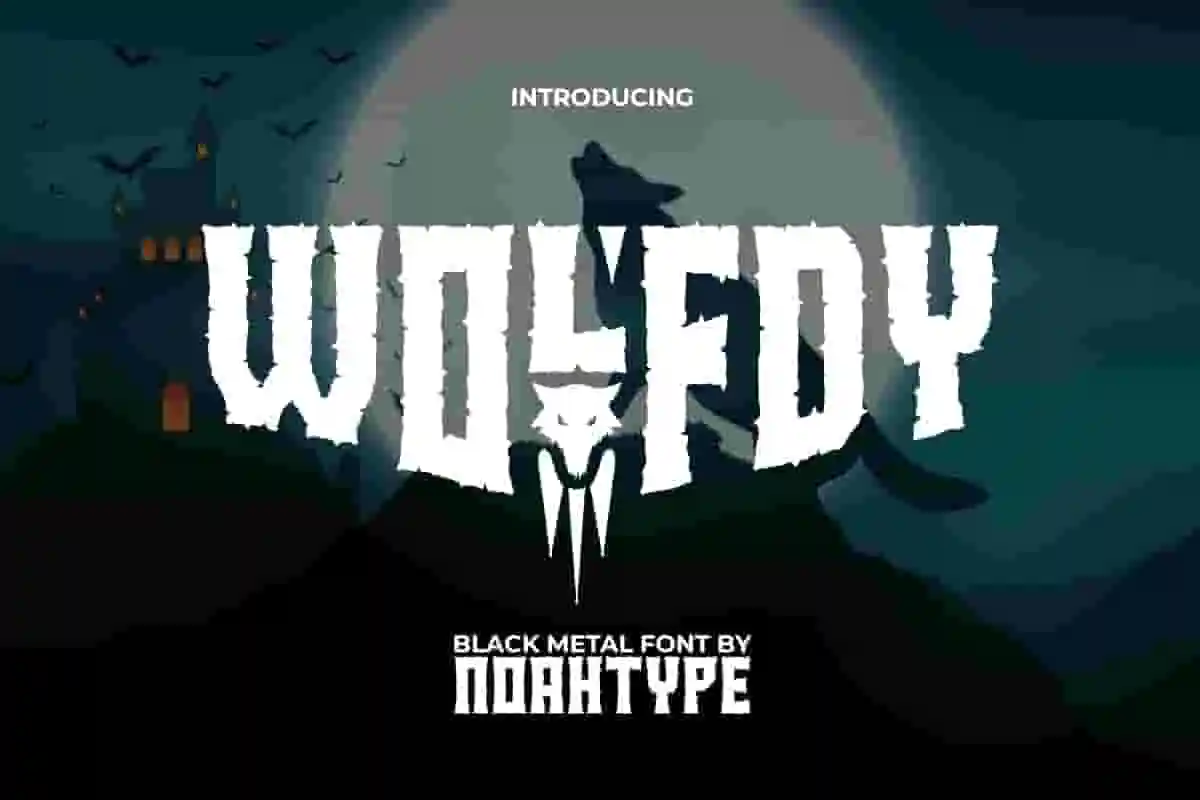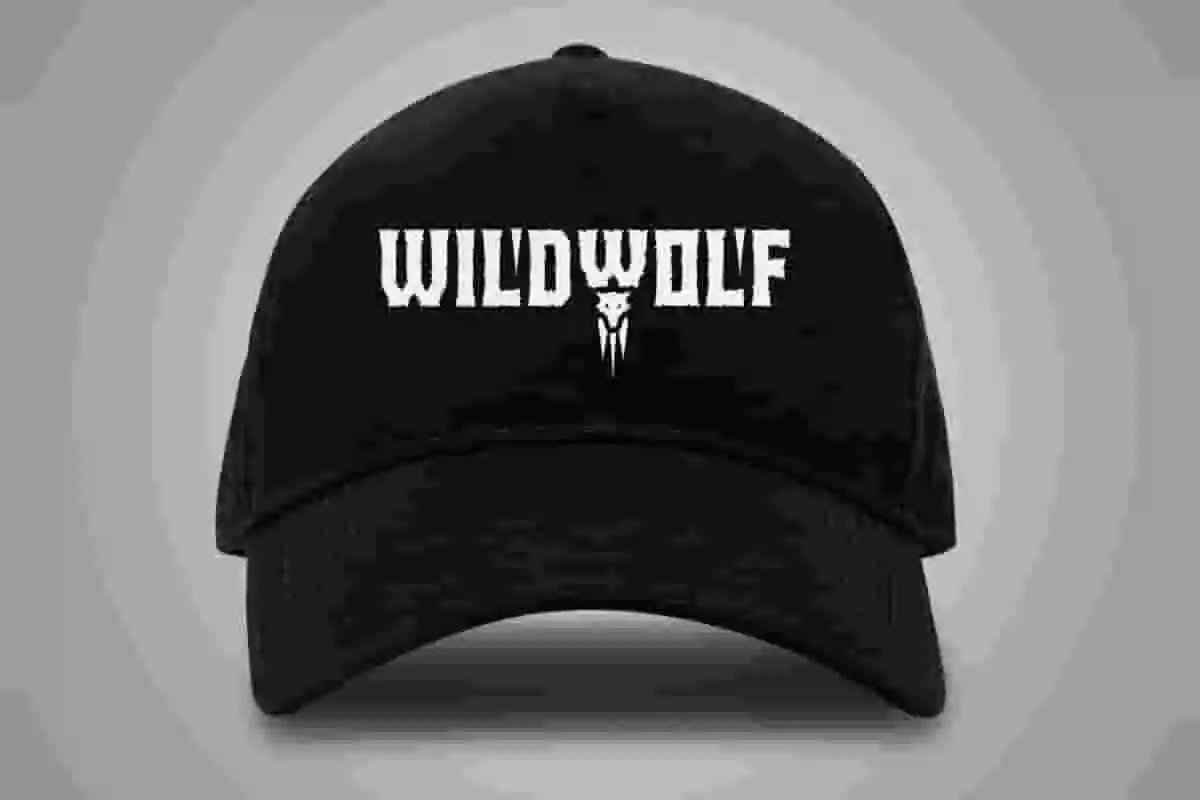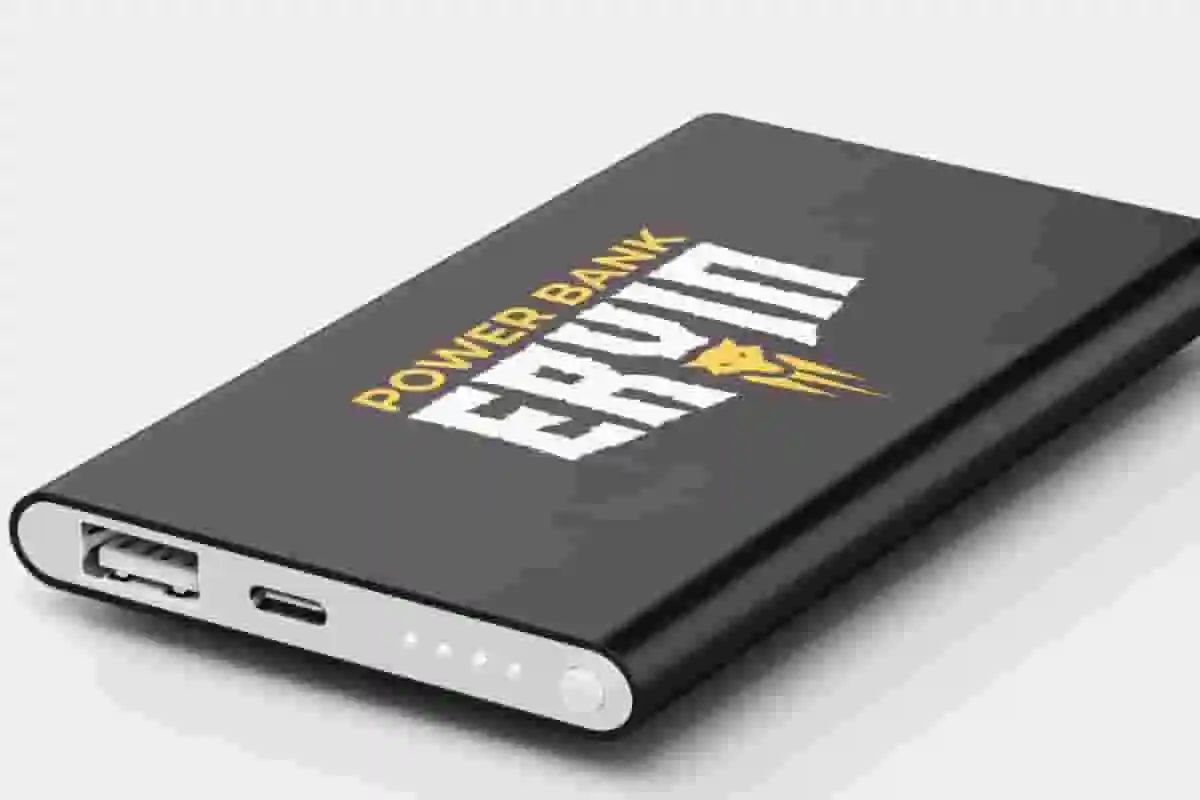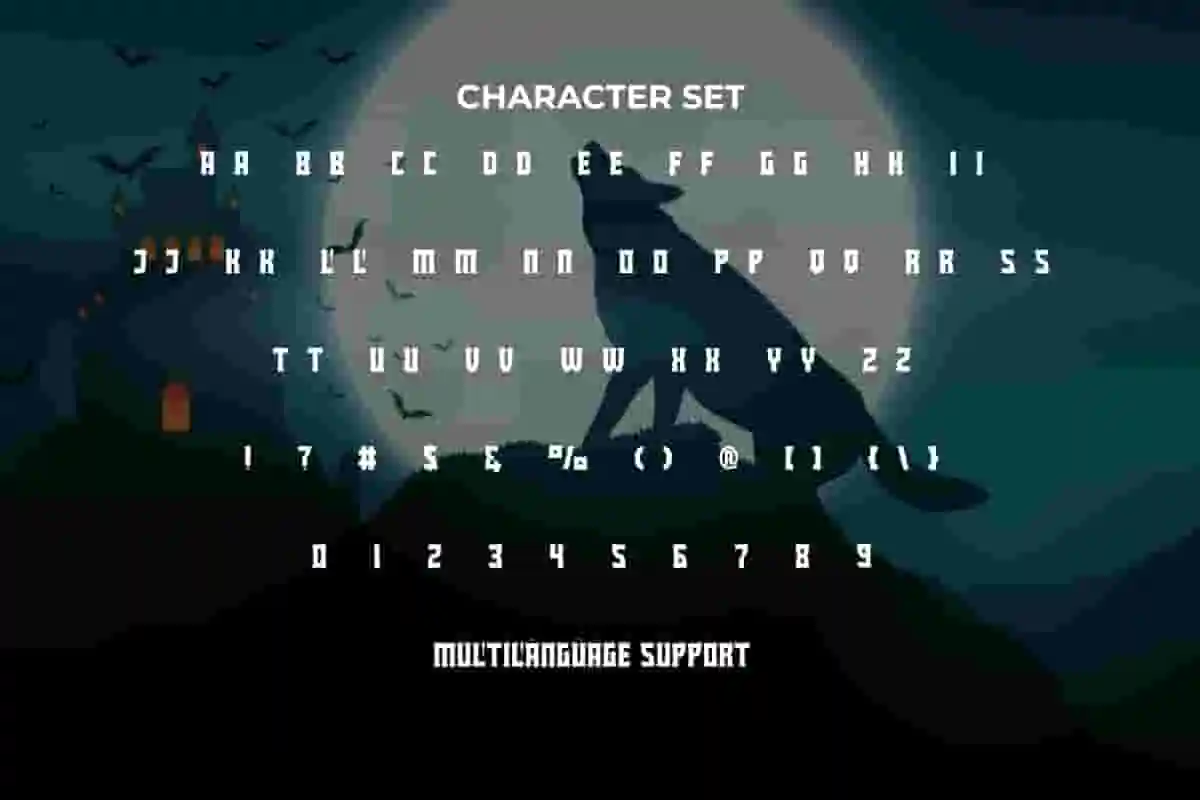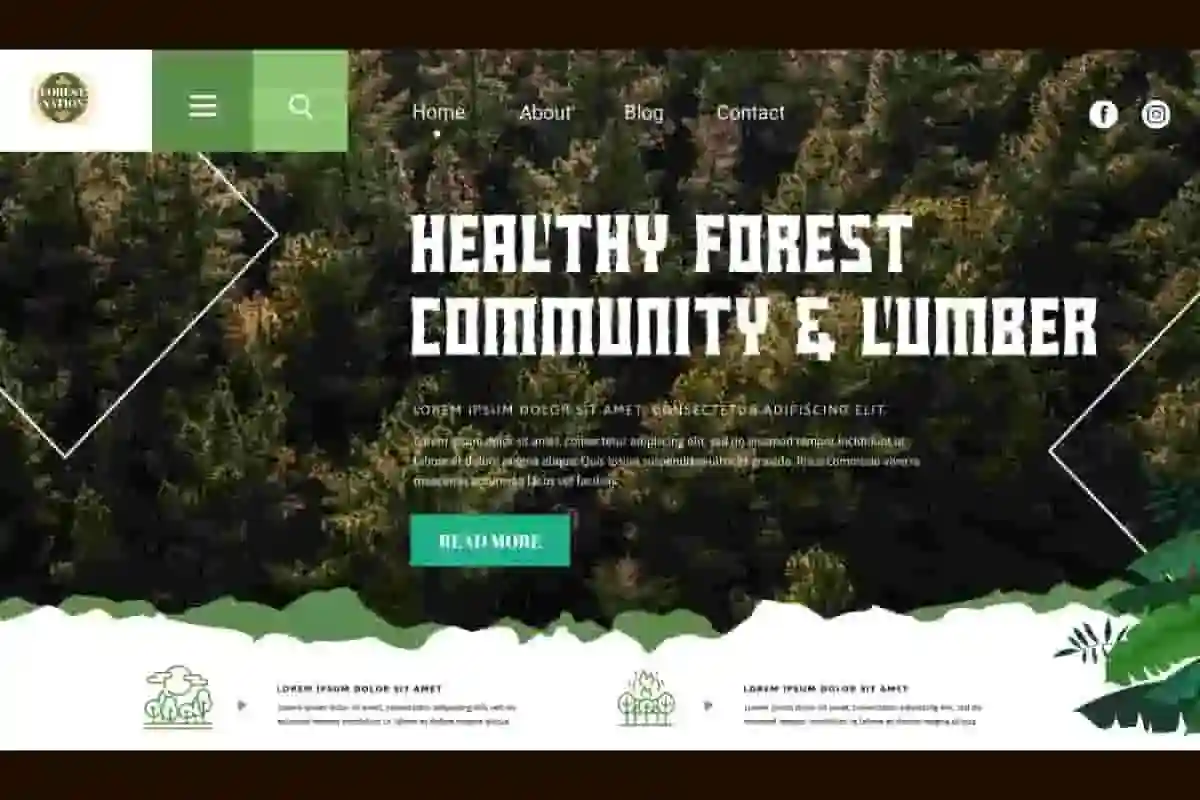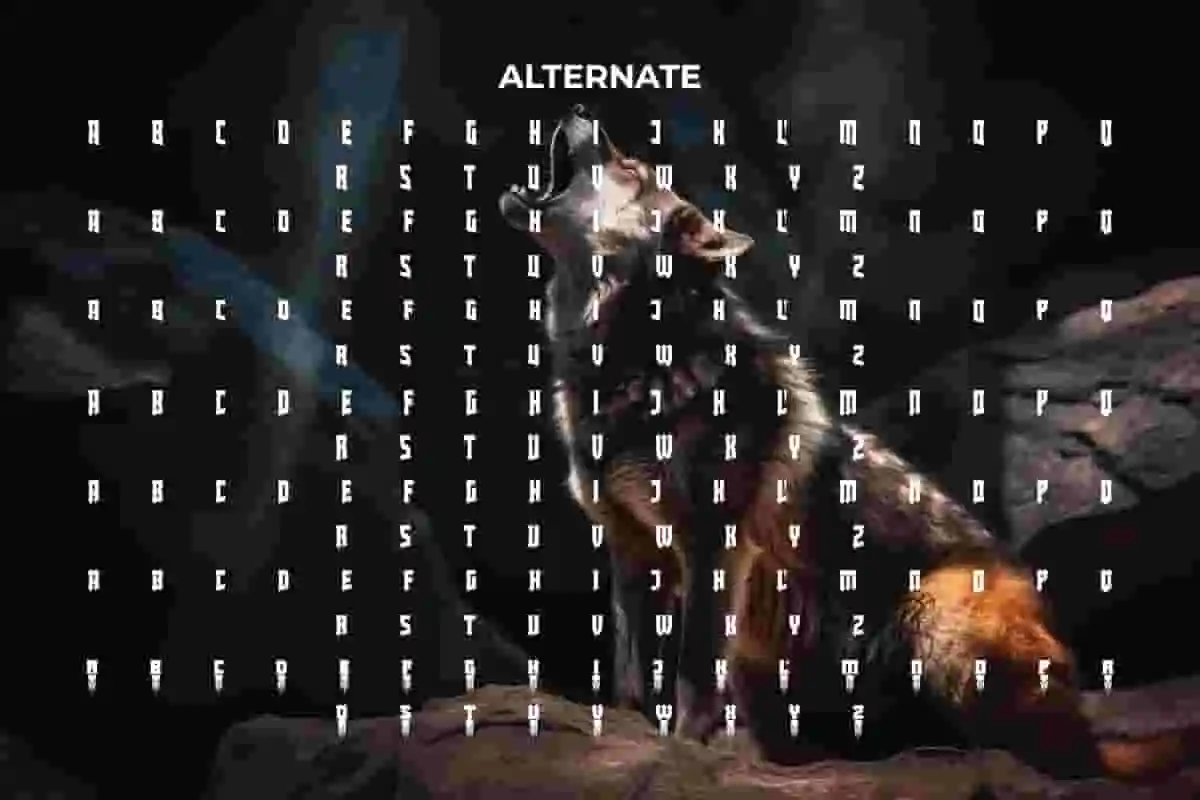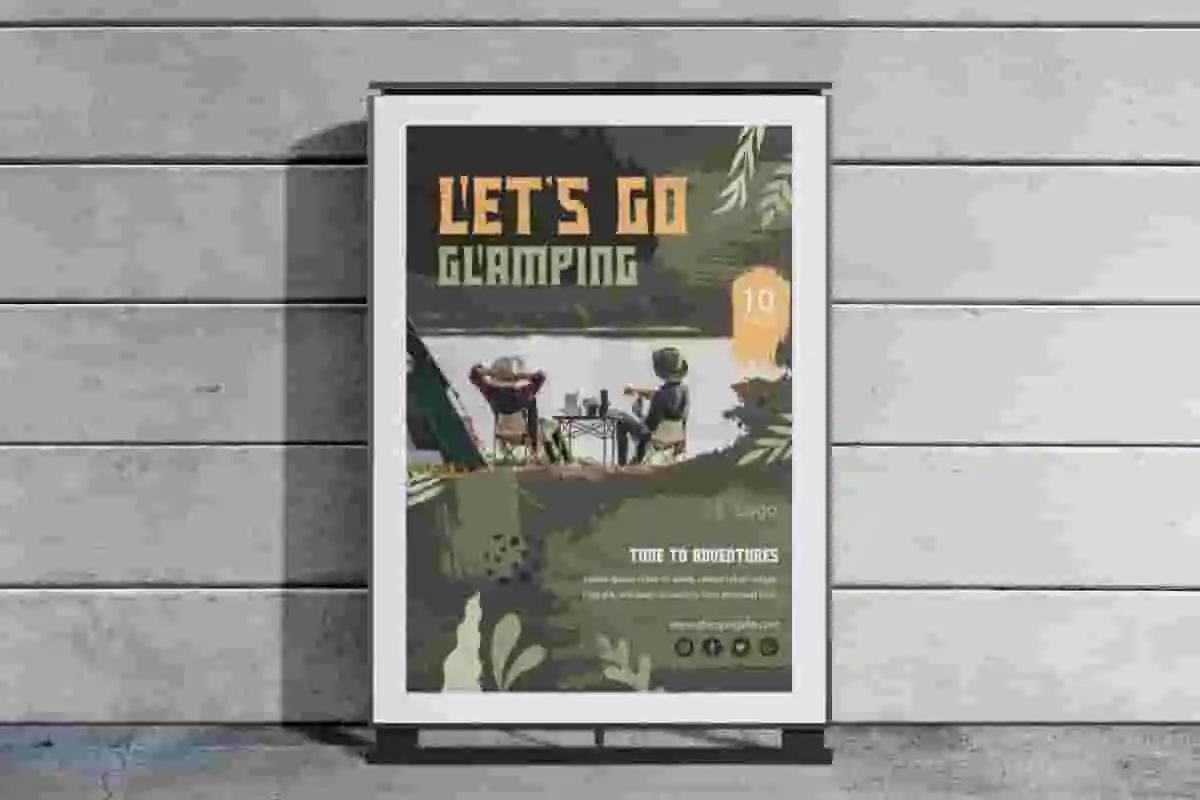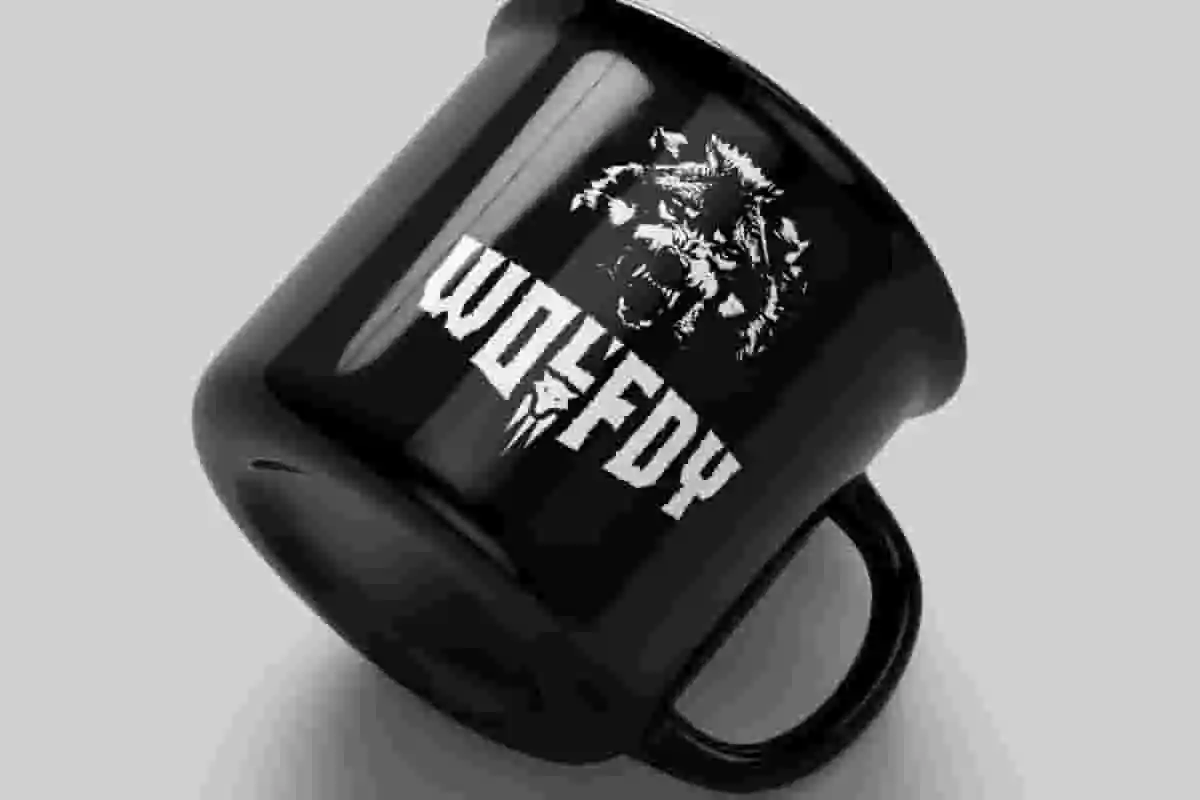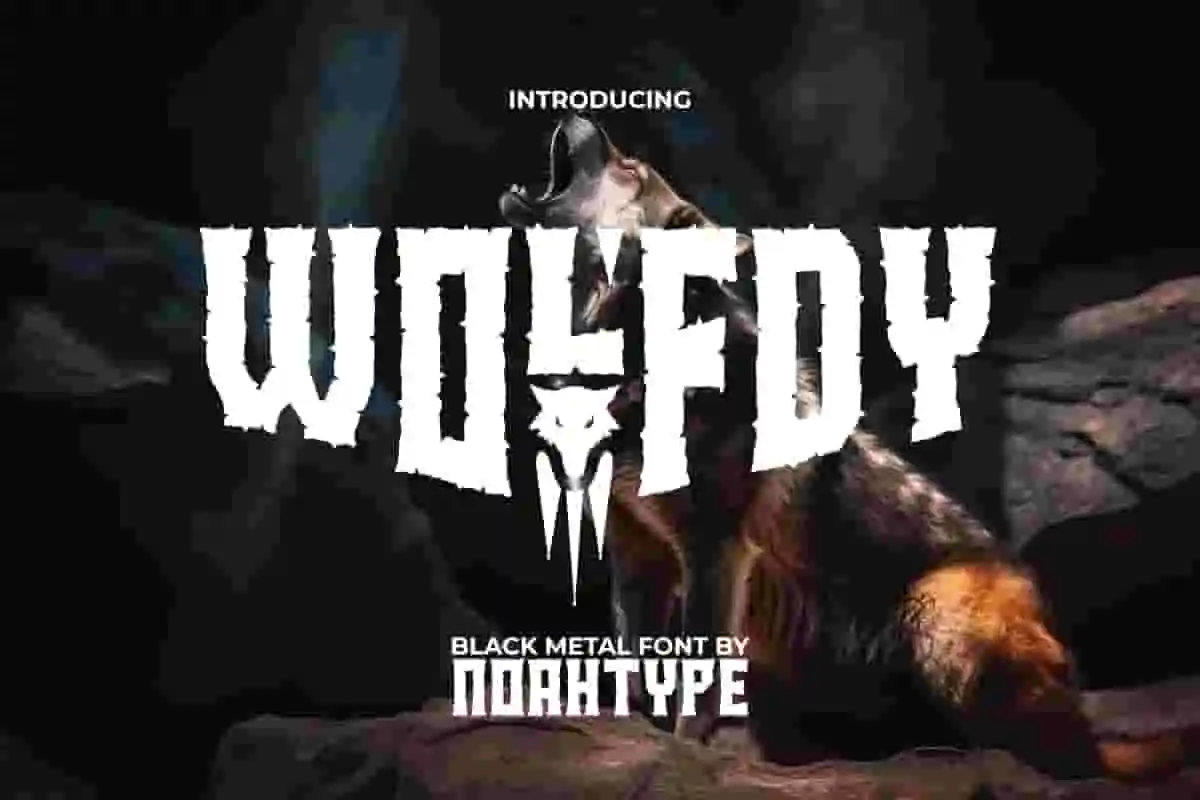
Wolfdy Font is a horror mysterious gaming decorative Black Metal font by NoahType. This font can give a wild, outdoor feel with the addition of a wolf icon on the alternative character. It will be awesome for any designs, such as custom design, brand image, poster, label, invitation, cover, marketing material, menu, printing, product packaging, quotes, signage, website, and many more!
Wolfdy Font includes full set of ALL CAPS for Uppercase and Lowercase Basic Characters, Numerals, Punctuation, Symbol, and Alternate Character. This creative font will make your design cool and also a perfect choice for many industries, such as game, movie, comic, music, accessories, advertising, art, café, event or festival, fashion, printing, publishing, etc.